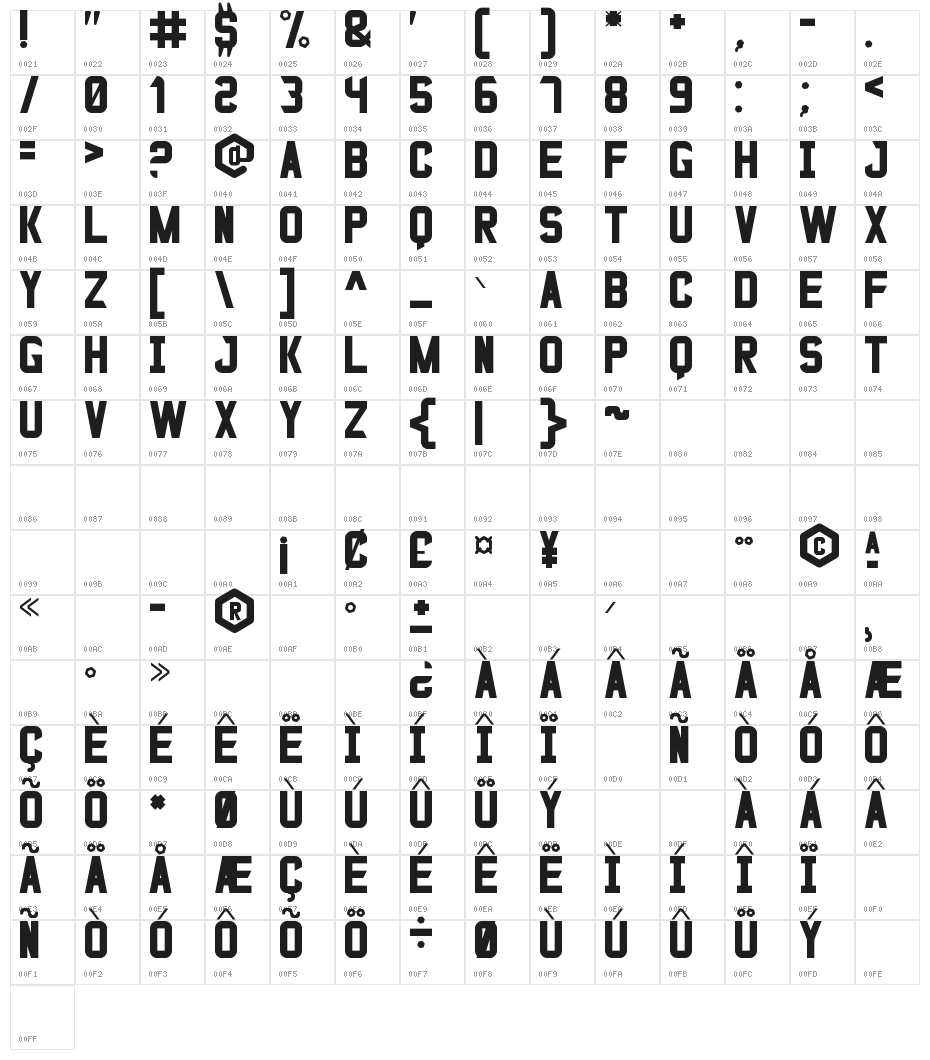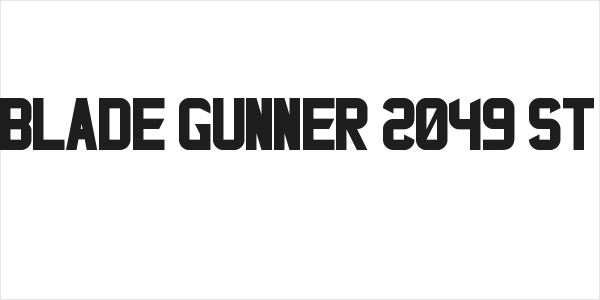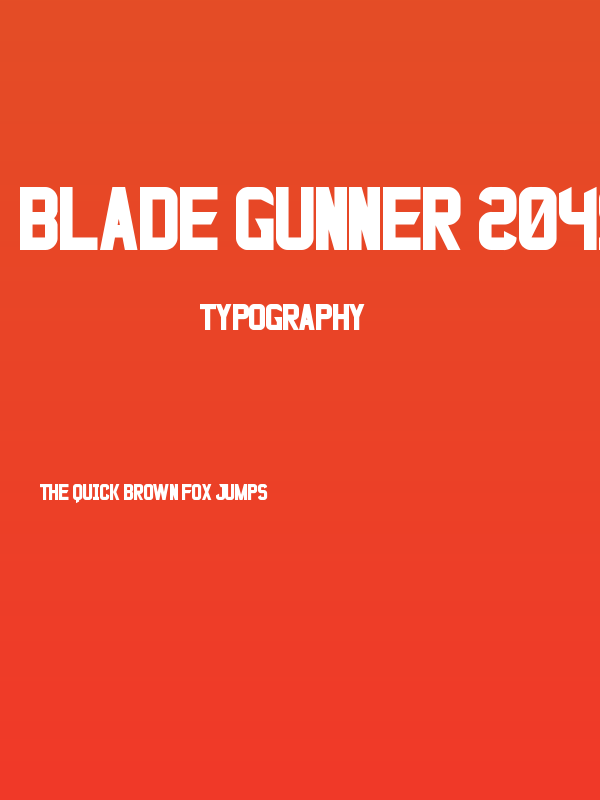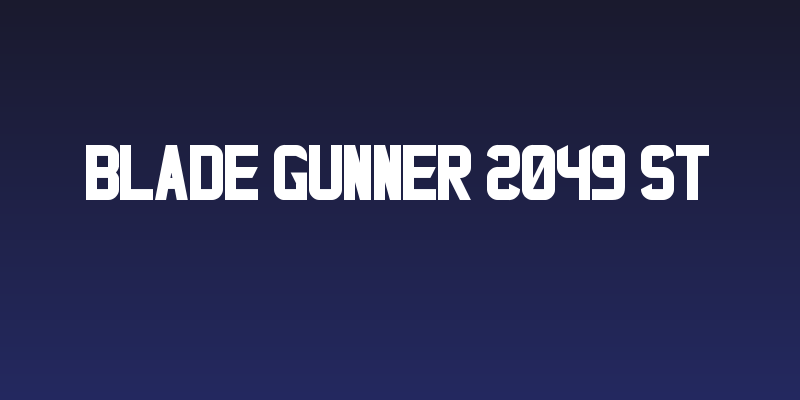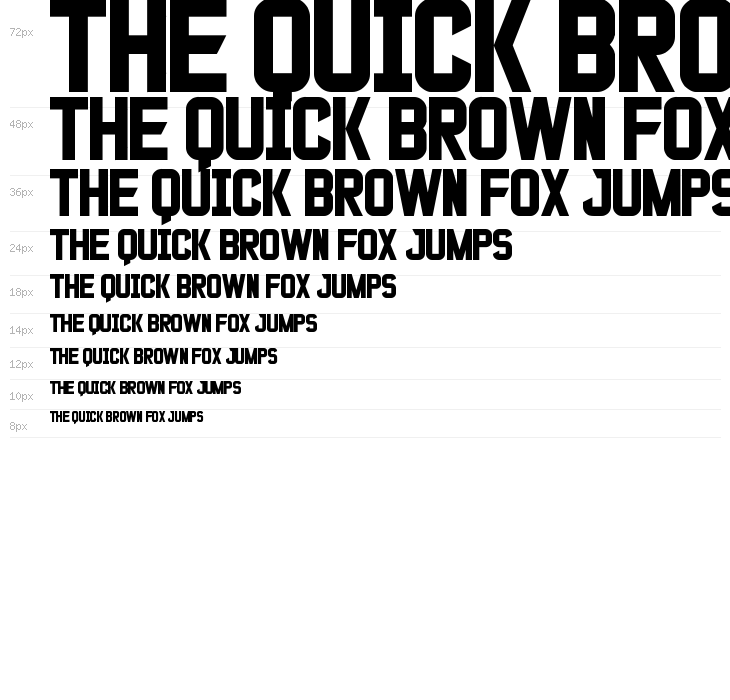
Blade Gunner 2049 St Font
Blade Gunner 2049 St Description
This font features a bold, futuristic design with sharp, angular lines and a strong geometric structure. The uppercase letters are particularly striking, with a blocky appearance that conveys a sense of strength and modernity. The lowercase letters maintain the same boldness, ensuring consistency across the typeface. Numbers and special characters are designed with the same angular style, making them easily recognizable and visually cohesive. The font's overall aesthetic is reminiscent of science fiction themes, making it ideal for projects that require a modern and edgy look.
| Proposed Projects | Ideal for movie posters, video game titles, sci-fi book covers, and branding for tech companies. |